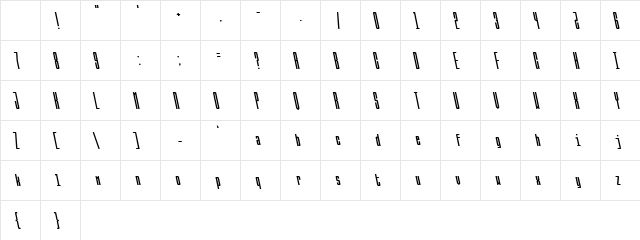
Complete Ballbase Backslanted glyph index. Displaying only characters natively supported by Ballbase Backslanted font.
Ballbase is a composed and adaptable typeface that performs quietly and consistently across a wide range of design contexts. The slanted form adds forward momentum and visual energy.